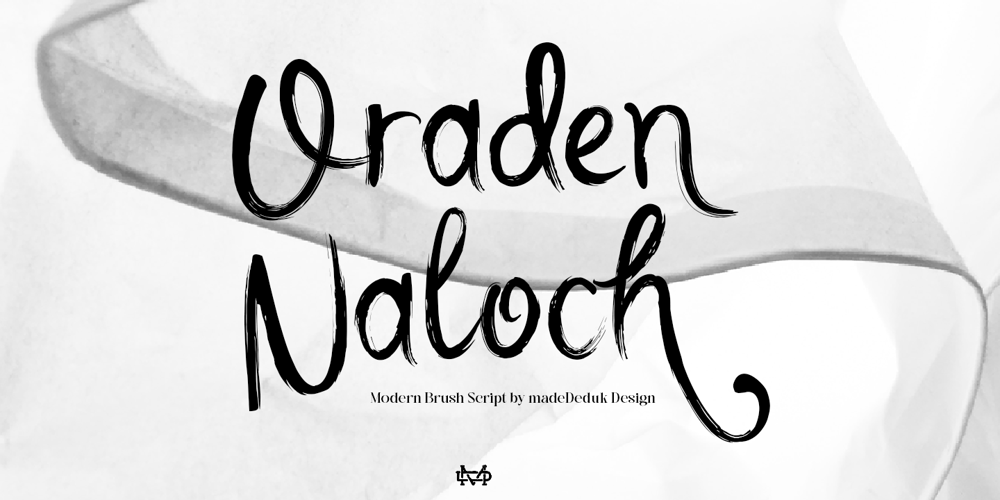
Oraden Naloch
Oraden Naloch font
Oraden Naloch Font Family was designed by madededuk and published by madeDeduk. Oraden Naloch contains 1 styles and family package options. Oraden Naloch is a modern handwritten Brush. This font perfect for poster design, book covers, merchandise, fashion campaigns, newsletters, branding, advertising, magazines, greeting cards, album covers, and quote designs and more.Feature Uppercase & Lowercase Number & Symbol International Glyphs Multilingual support Alternative Ligature Hope you enjoy it.